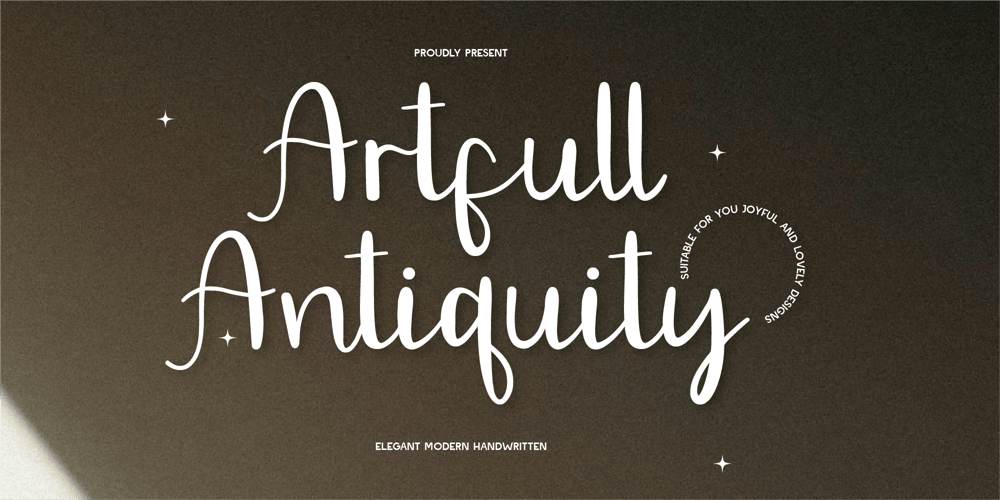
Artfull Antiquity Font Family was designed by Gilang Mei Nugraha, Frederik Aristaputra and published by Creatifont Studio. Artfull Antiquity contains 1 styles and family package options. Introducing Artfull Antiquity, a script font that beautifully balances elegance with a hint of modern chic. Designed to infuse sophistication into your work, this font features graceful, flowing strokes and subtly playful curves, making it perfect for adding a touch of refined charm. The delicate, slightly whimsical letterforms maintain an effortless grace, ideal for creating inviting, stylish designs.A SUMMARY OF WHAT’S INCLUDED: Standard Character A-Z, a-z, 0-9, Punctuation & symbols Regular Style Multilingual Support Ligatures and Alternates Included Works on PC & Mac Simple installation Accessible in Adobe Creative Suite (Ai, Ps, Id, etc.) even work on Microsoft Word. PUA Encoded Characters – Fully accessible without additional design software. 🌟If you come across any issues or notice anything we might have overlooked while using this product, please feel free to reach out to us. We greatly value your feedback as it helps us enhance and refine our products. Thank you!